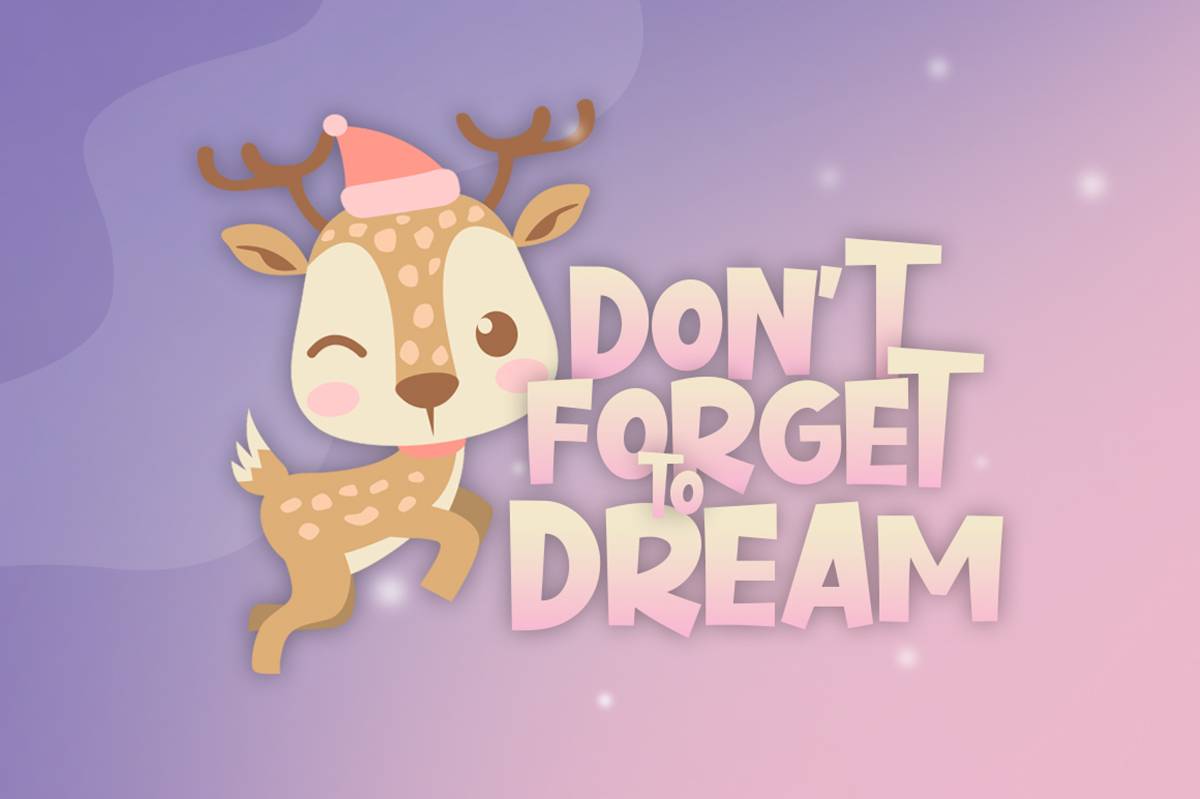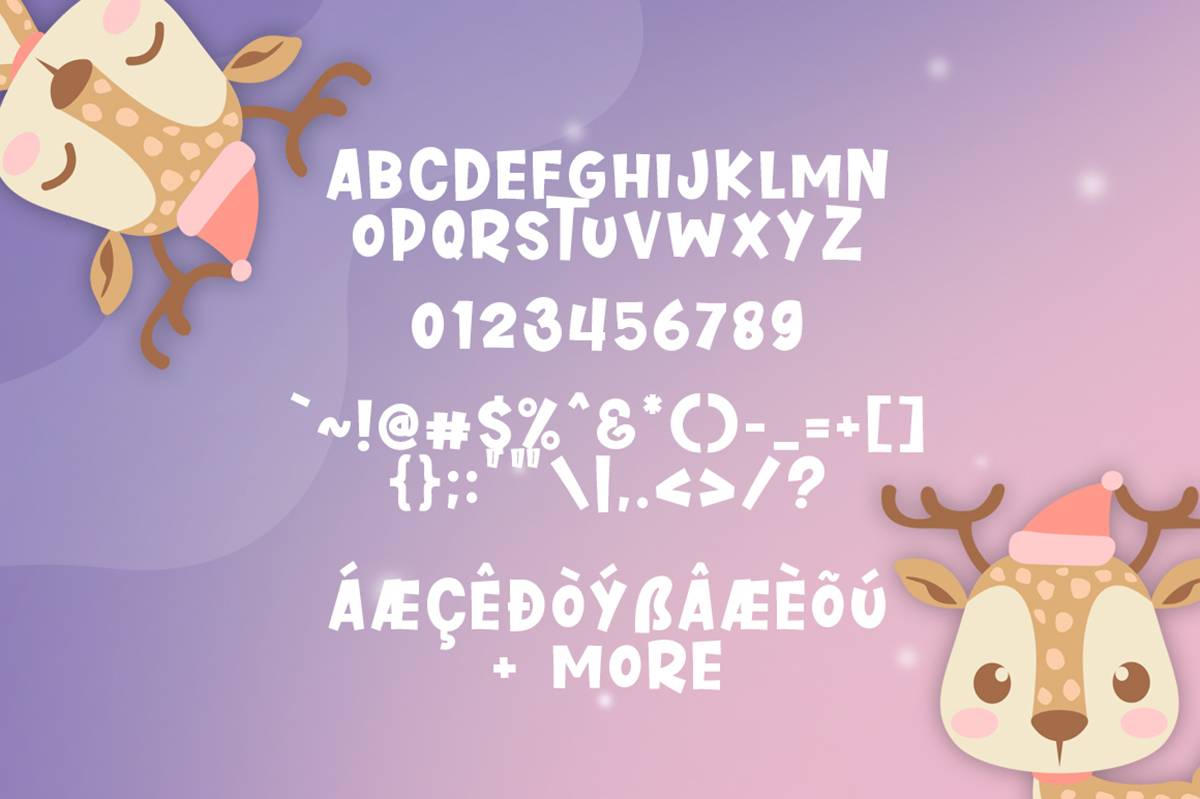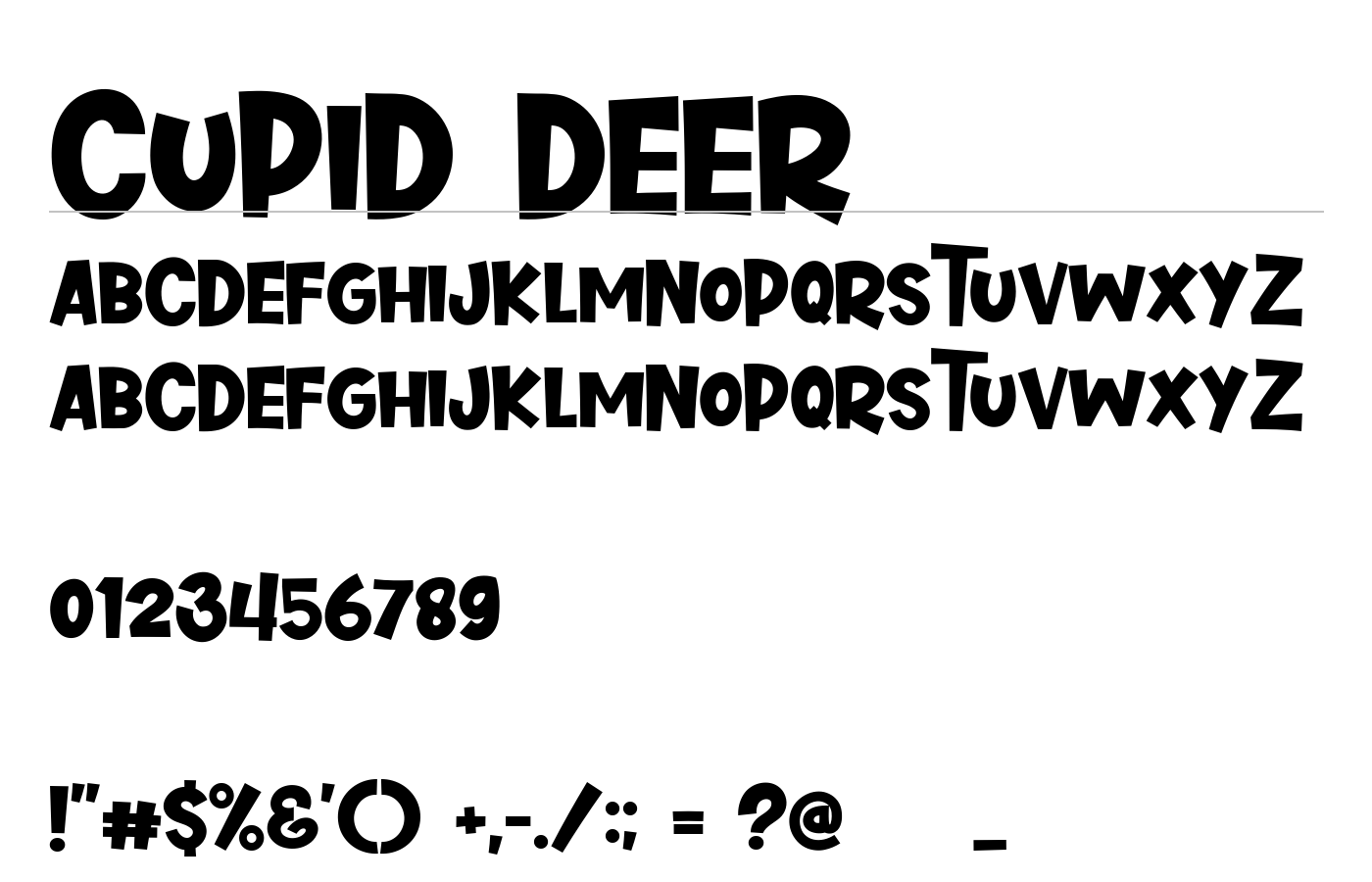
Cupid Deer is a bold, playful sans serif font with a quirky, hand-drawn feel that makes it ideal for fun and casual designs. Its slightly irregular shapes and thick strokes give it a lively, energetic personality perfect for children's materials, party invitations, or creative branding that wants to stand out with a joyful tone. This font works best in headlines and logos where its unique character can capture attention instantly.
Cupid Deer Font
About Cupid Deer Font